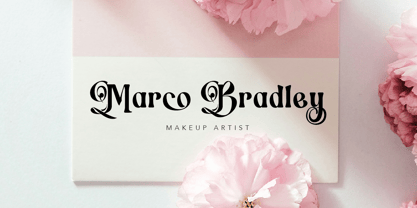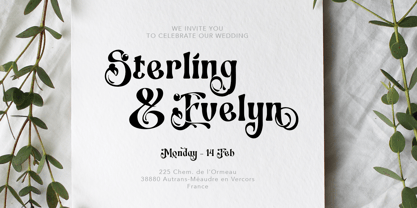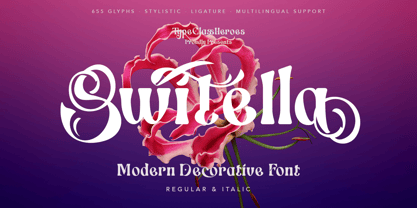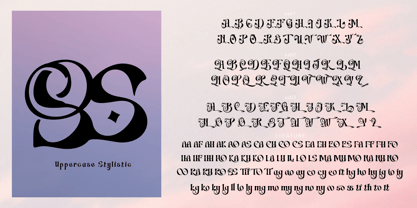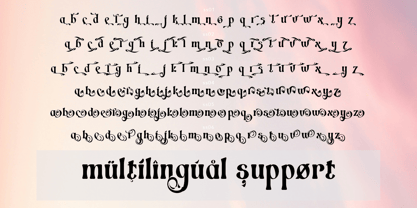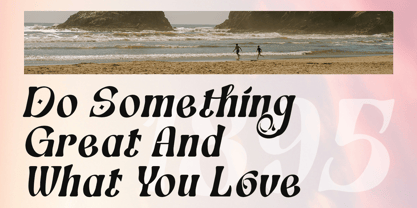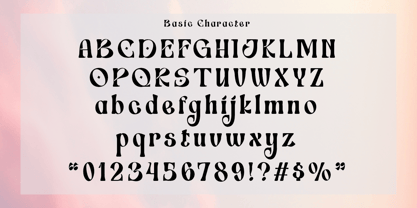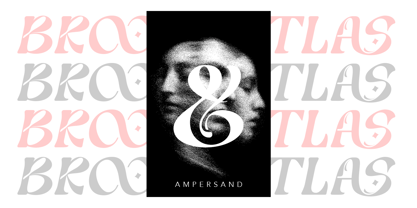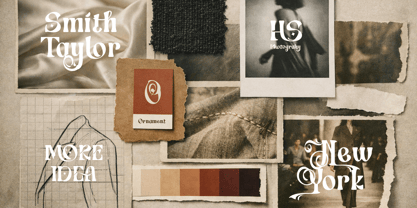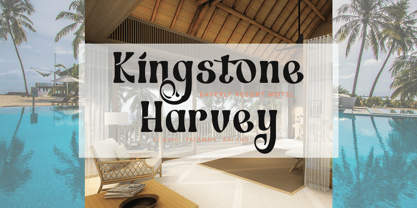
Switella
by TypeClassHeroes
The Switella Font Family was designed by Suandana ipandemade and published by TypeClassHeroes. Switella contains 2 styles and family package options. More about this family
Introducing Switella, this font is a modern decorative font with a blend of vintage, classic, and ornamental styles, highlighting swash details and alternate characters. The design conveys an elegant, luxurious, artistic, and unique feel, creating a strong and recognizable visual identity. This font functions not only as a typographic element but also as part of branding, enhancing the appeal of a product or brand. With its distinctive character, the font is highly suitable for logos, product packaging, titles, posters, and promotional media that require an exclusive and eye-catching appearance. Overall, this font is ideal for use in the food and beverage industry. It is also suitable for branding, cosmetics, florals, invitations, and handmade products that promote a premium, vintage, and elegant concept. The unique letterforms and use of alternate characters make this font capable of providing aesthetic value and strengthening the brand image in various design media.
Designers: Suandana ipandemade
Foundry: TypeClassHeroes